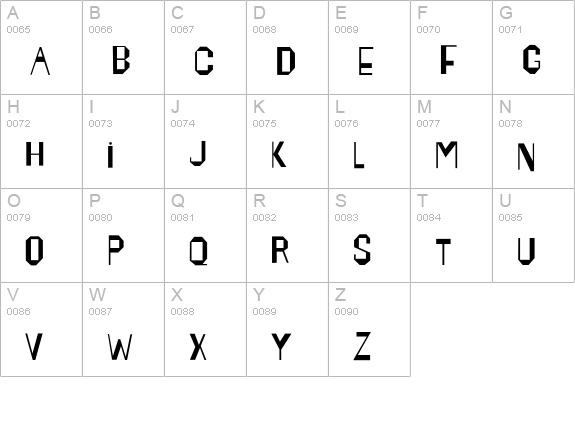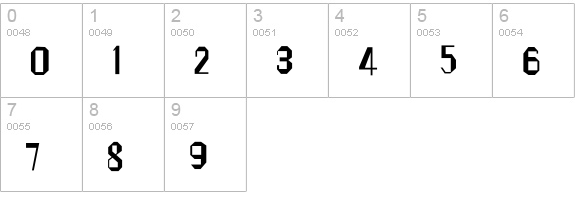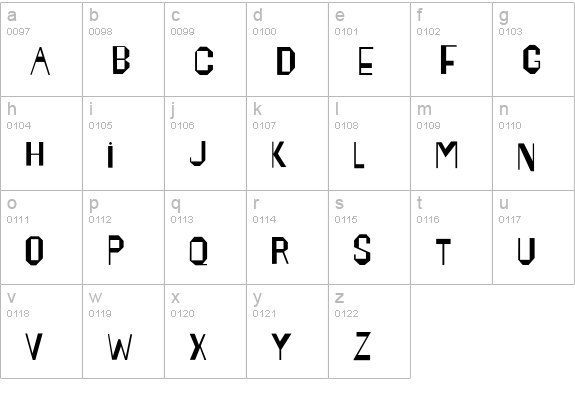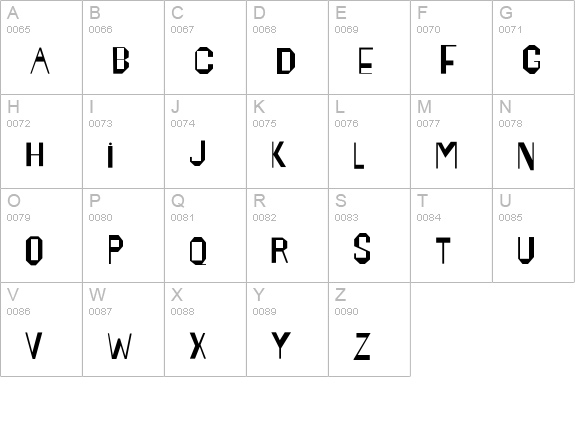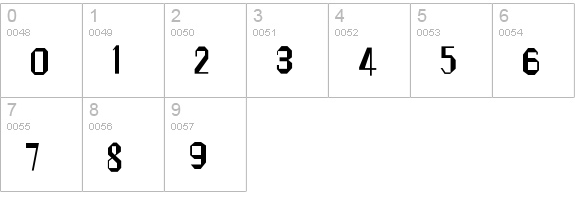
Maynard Font Details
Maynard font is a stunning and elegant typeface that exudes sophistication and charm. With its unique combination of modern and classic elements, Maynard font is perfect for a wide range of design projects, from branding to editorial design. Its sleek lines and stylish curves make it a versatile choice for any creative endeavor. What makes Maynard font even more appealing is that it is completely free! You can easily download this beautiful font at FontsMarket.com and start using it in your designs right away. Don't miss out on the opportunity to add Maynard font to your collection of go-to typefaces – download it today and elevate your design projects to new heights!